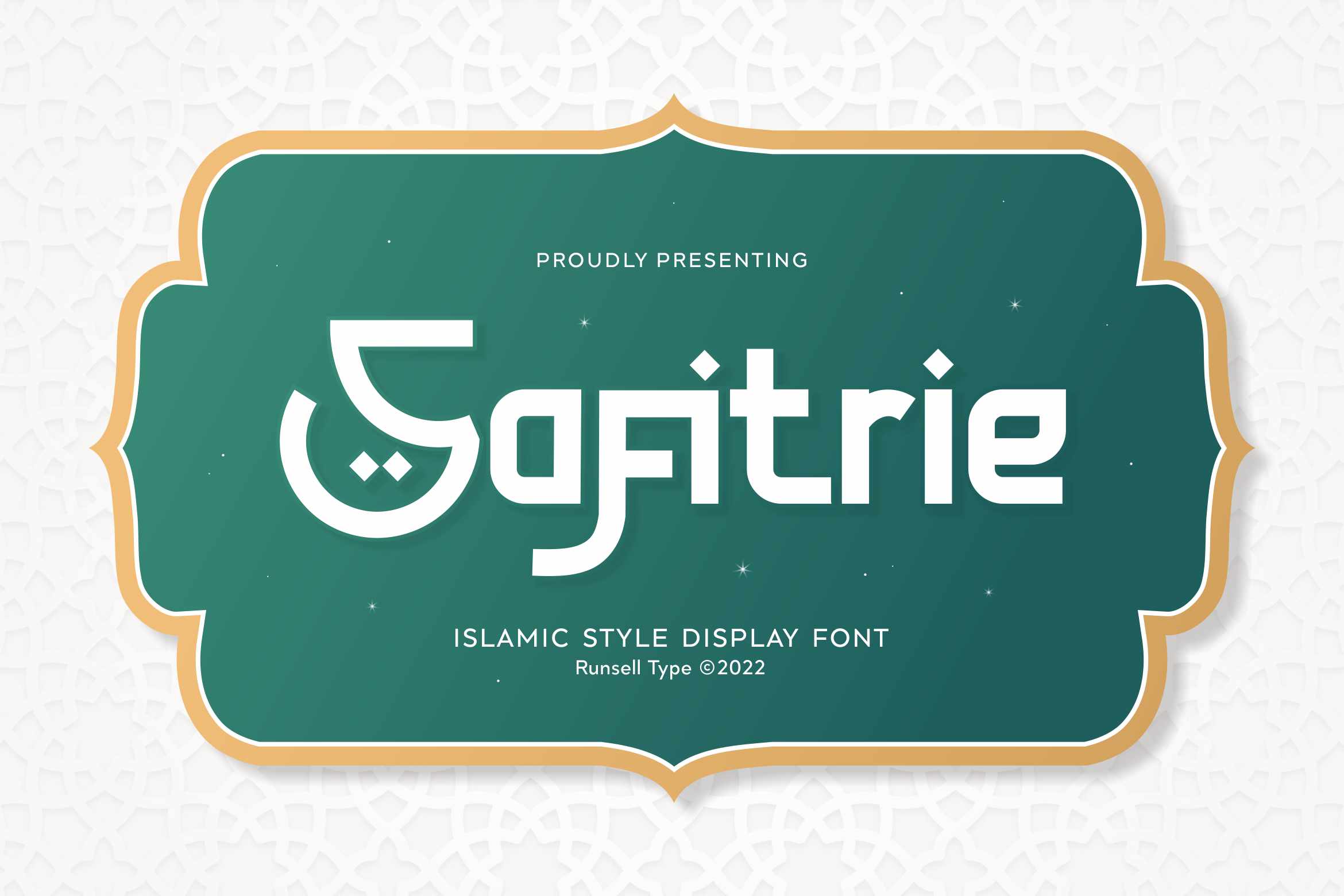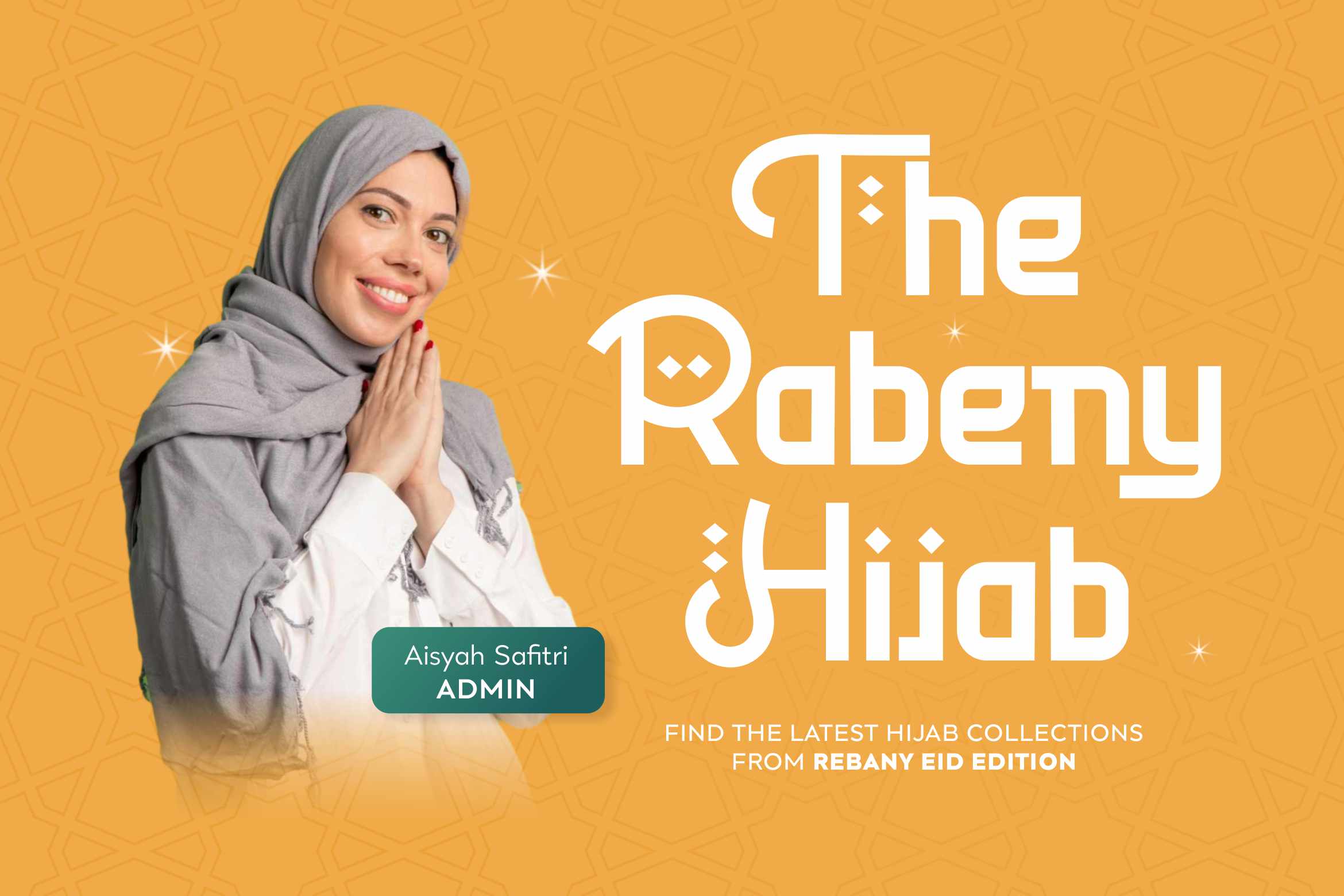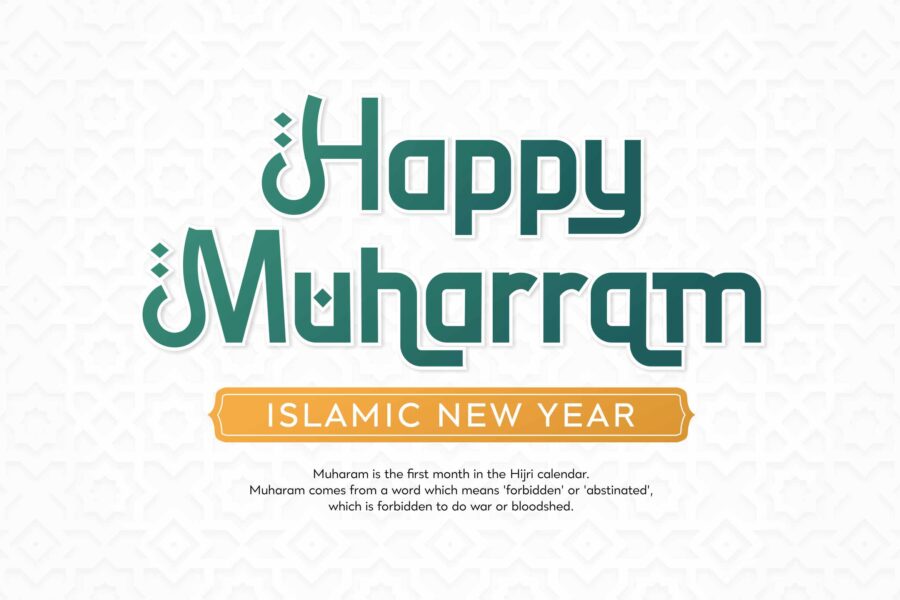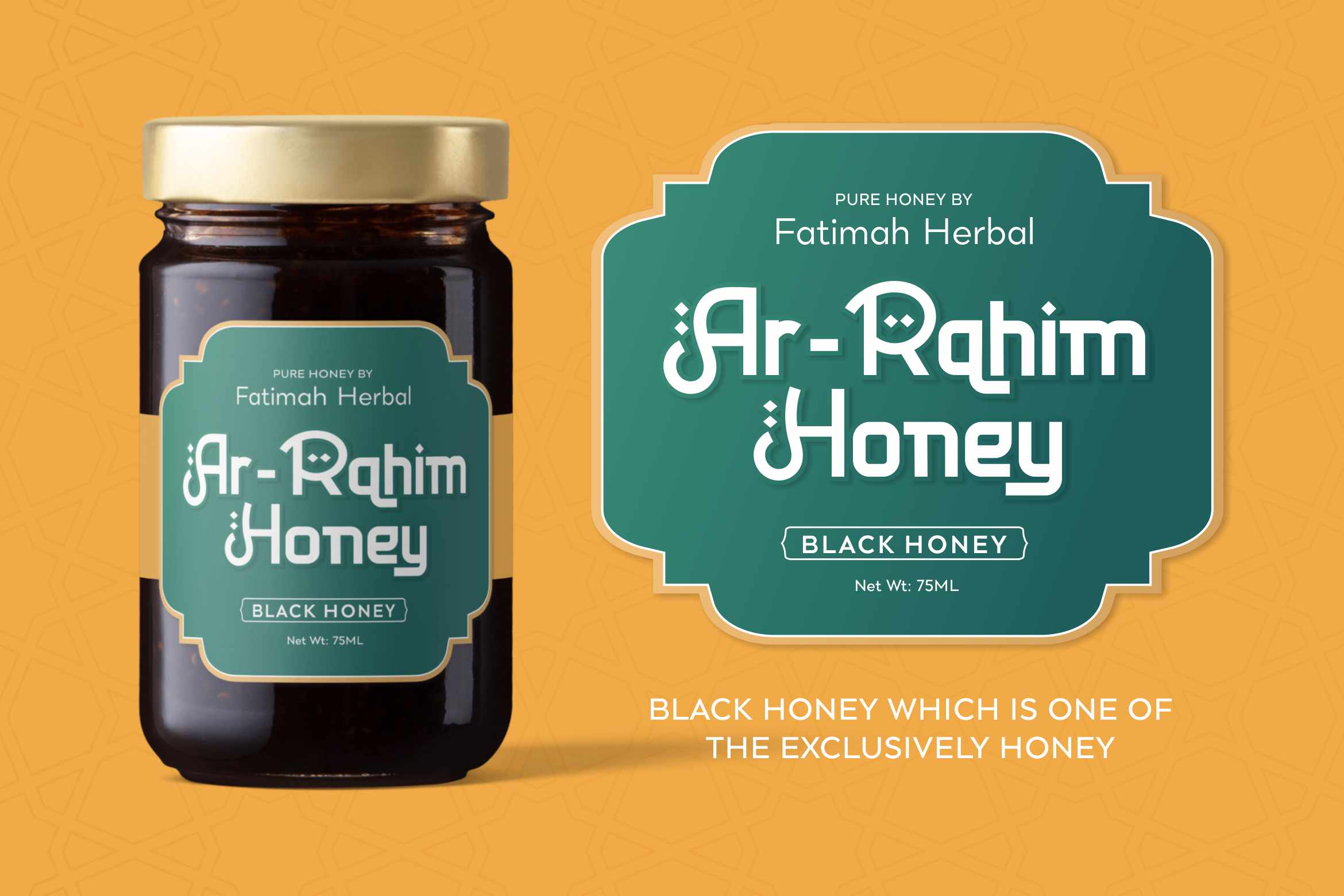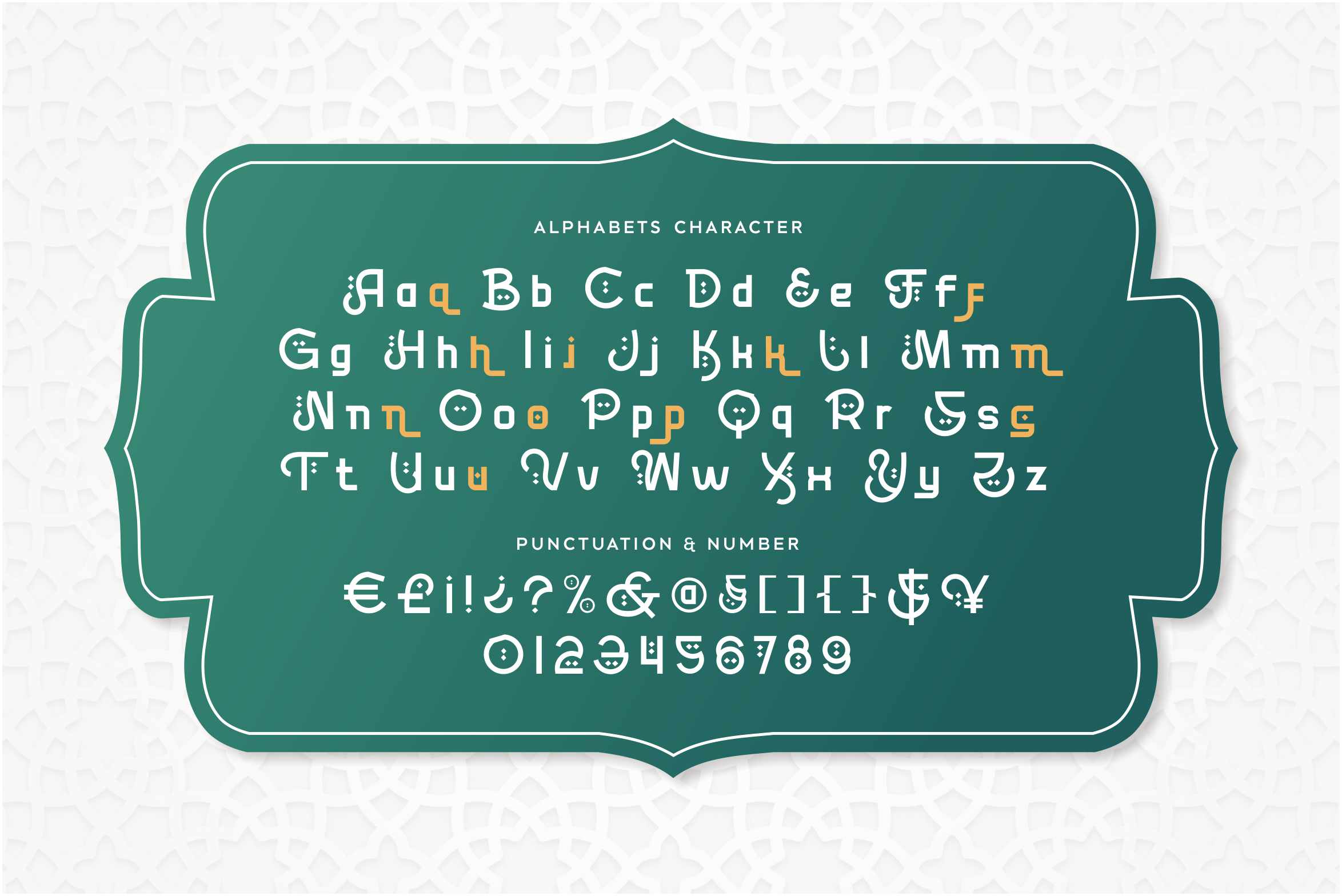
Safitrie
Glyphs for Safitrie
Safitrie is a contemporary Islamic display font that artfully combines modern sans serif structure with Arabic-inspired flair. Its bold lines and geometric curves are embellished with ornamental dots and strokes, offering a unique cultural identity perfect for religious branding, Eid celebrations, product packaging, and spiritual quotes. The font strikes a balance between legibility and style, making it ideal for both digital and print purposes.
Designed with multilingual support and a range of alternative styles, Safitrie allows for extensive customization across branding projects. Its flexibility shines through in a modern Islamic visual identity that brings character and spiritual essence to your designs with a playful yet respectful tone.